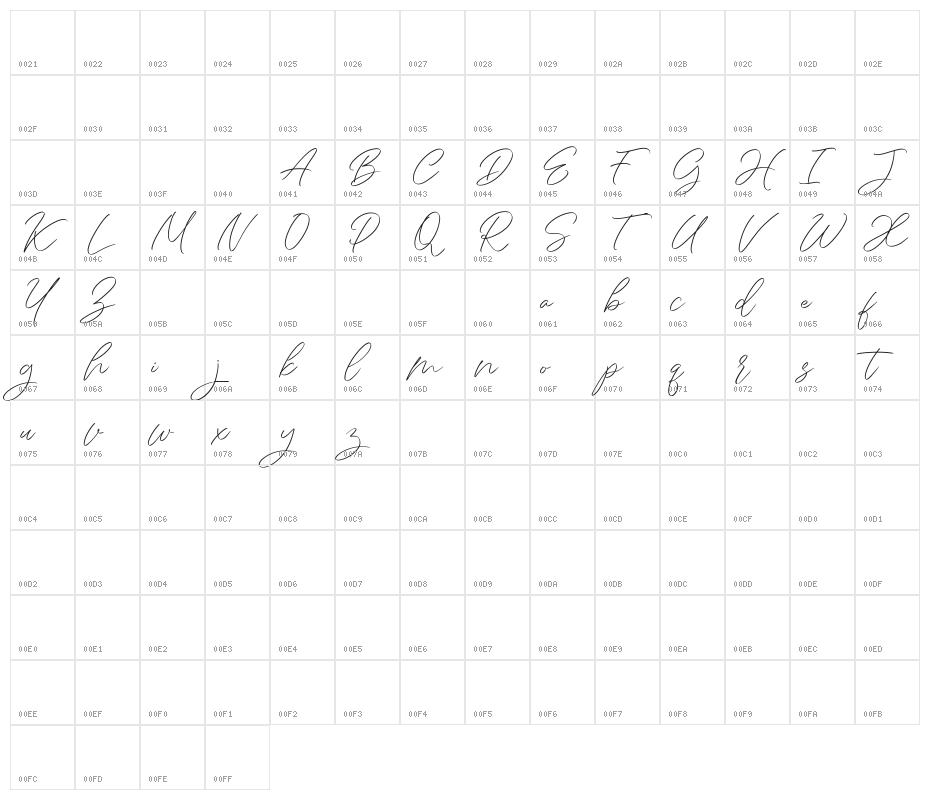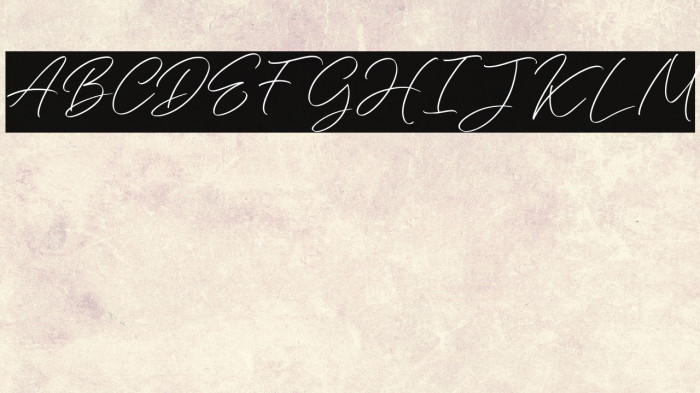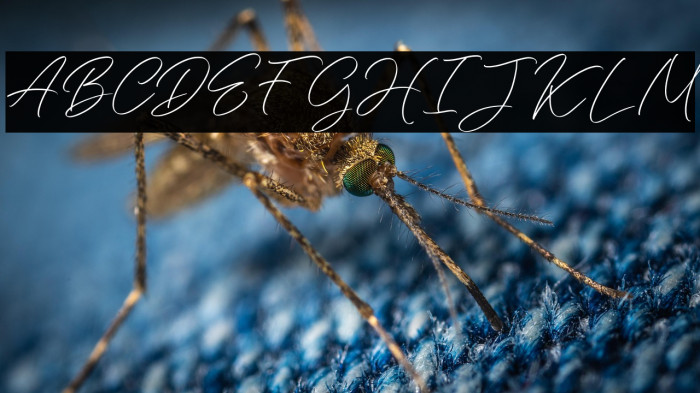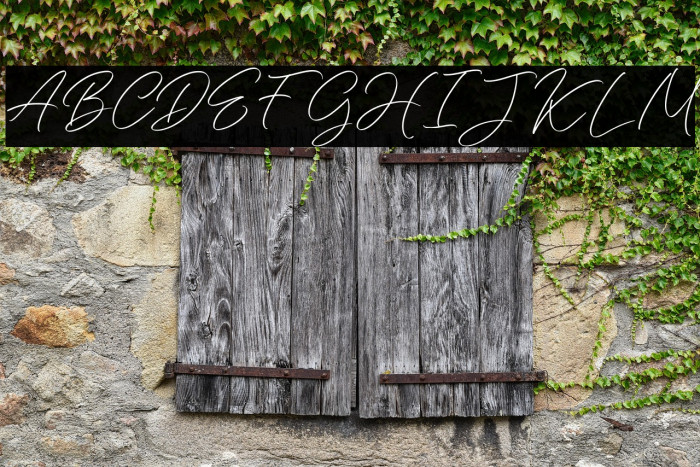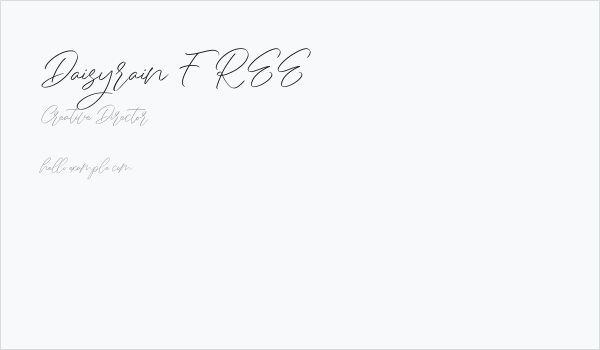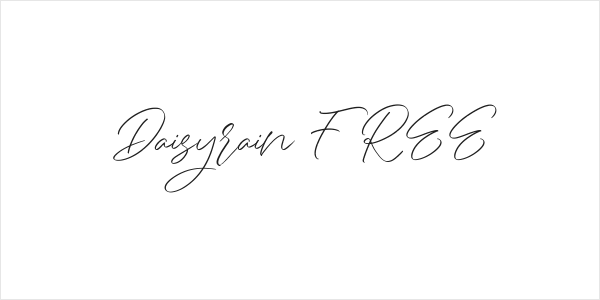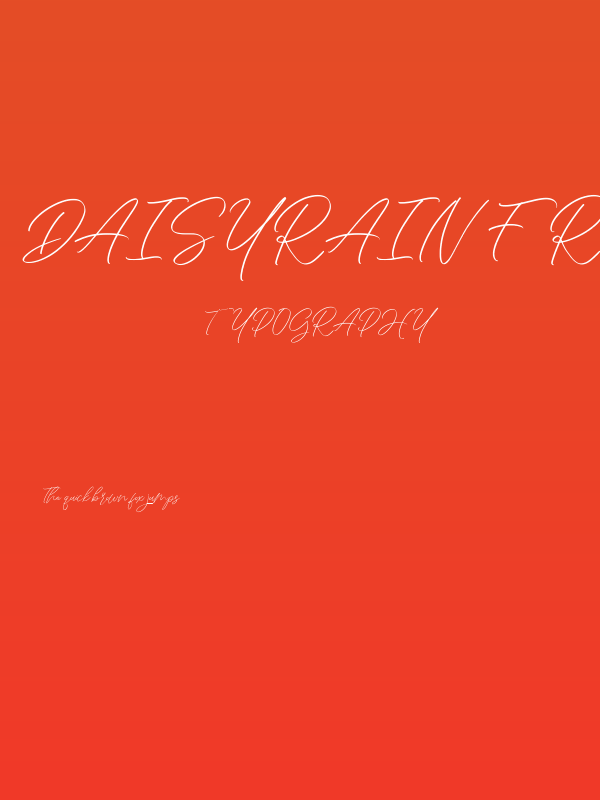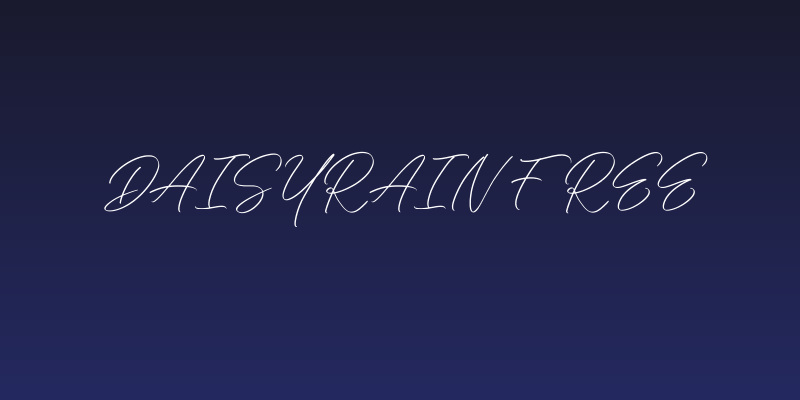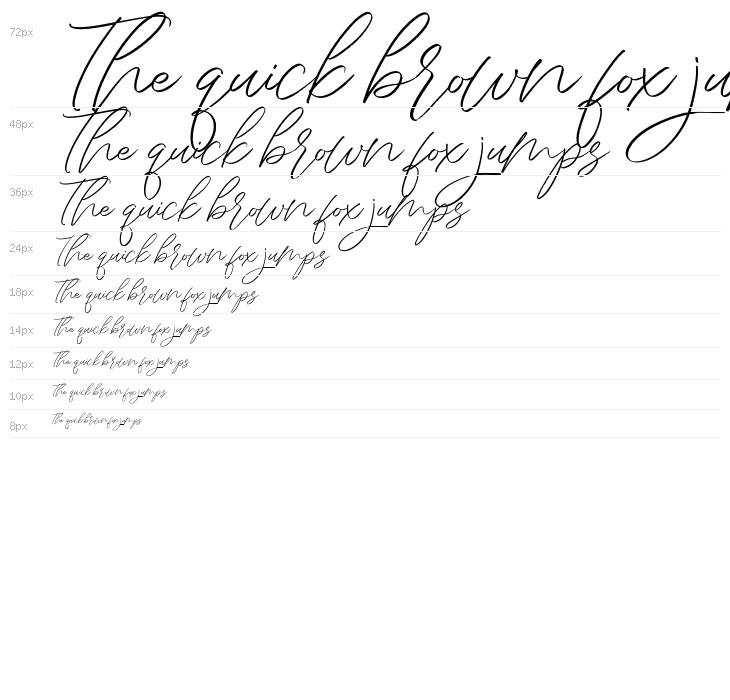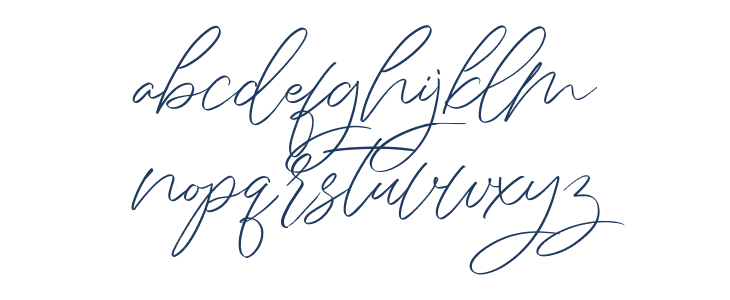
Daisyrain FREE Font
Daisyrain FREE Description
This font exhibits a flowing, cursive style that mimics elegant handwriting. The characters are interconnected, creating a seamless and fluid appearance. The uppercase letters are slightly more structured, while the lowercase letters have a more relaxed and freeform style. The strokes are consistent in thickness, providing a balanced and harmonious look. The overall design is sophisticated and artistic, making it suitable for projects that require a personal touch. The font's aesthetic is both modern and timeless, appealing to a wide range of creative applications.
| Overall Style | Elegant, Artistic |
| Proposed Projects | Ideal for wedding invitations, greeting cards, personal branding, and artistic projects. |